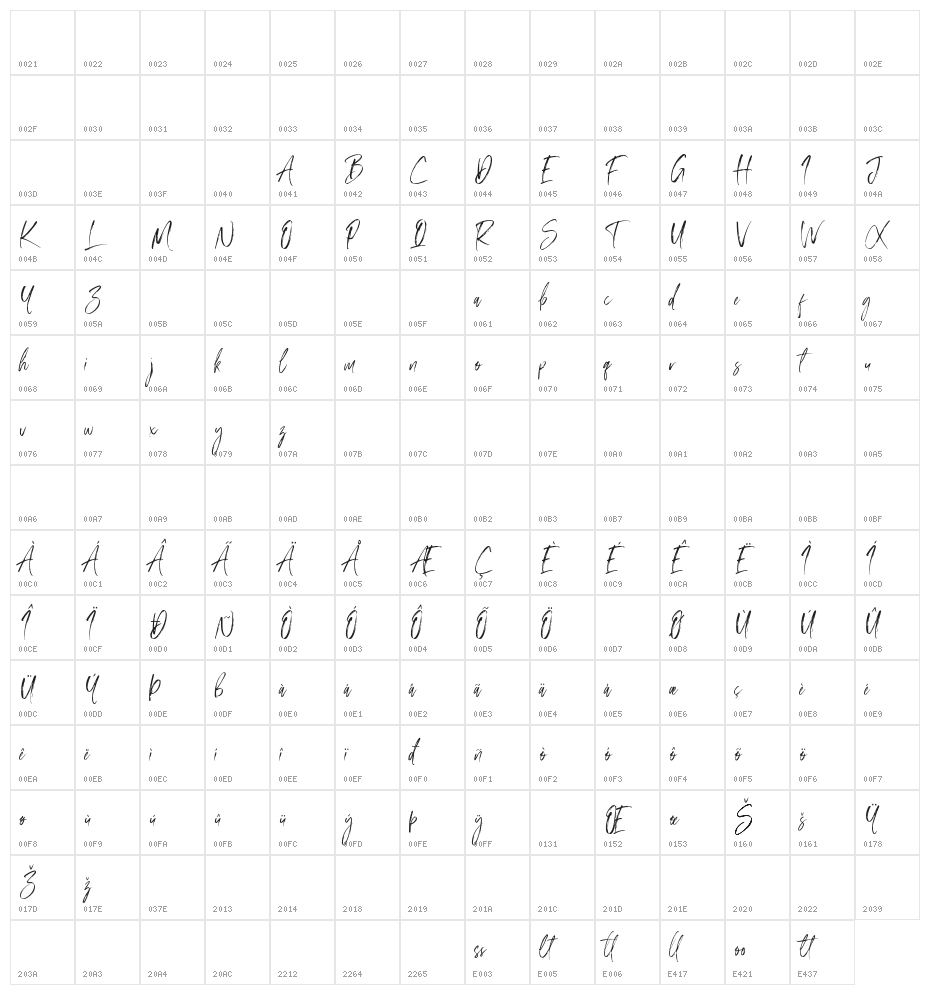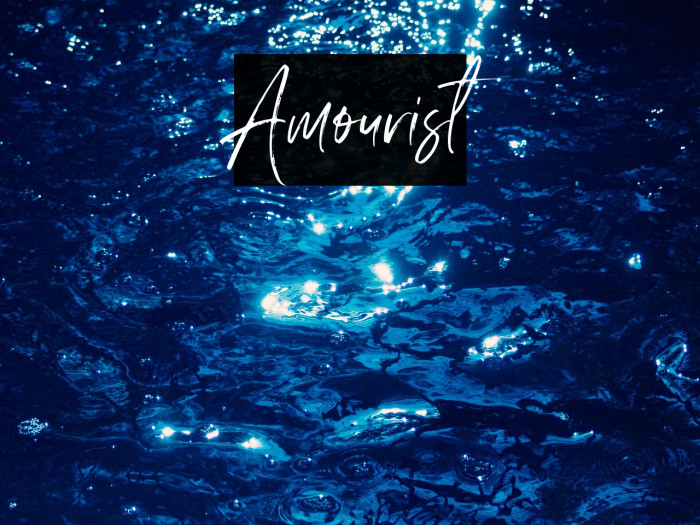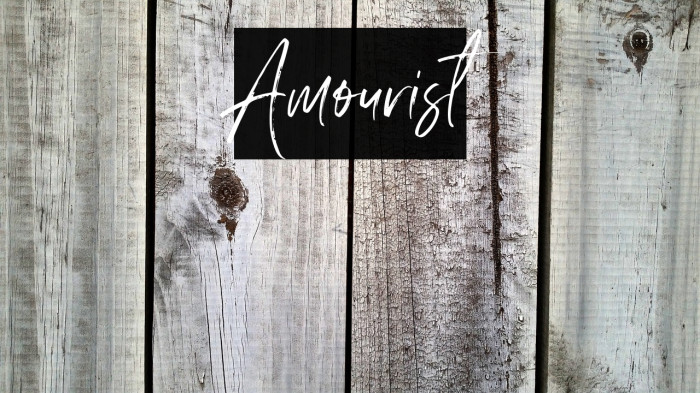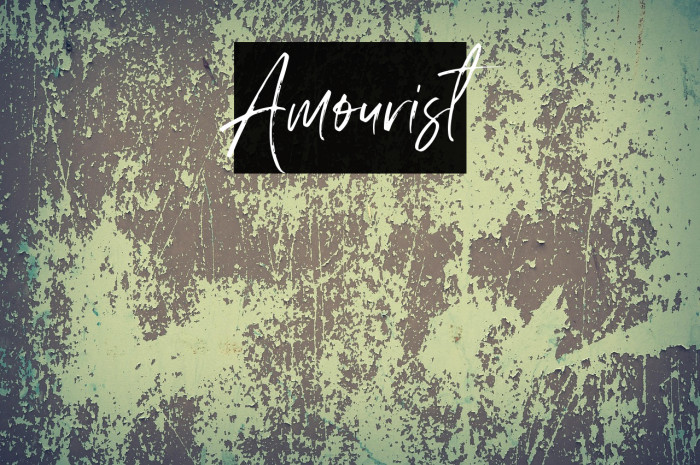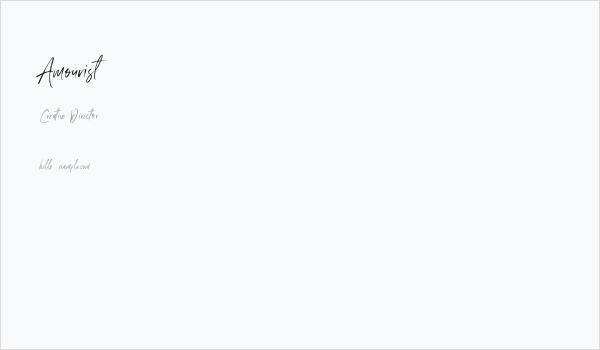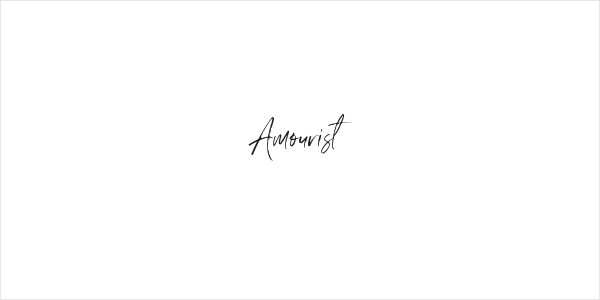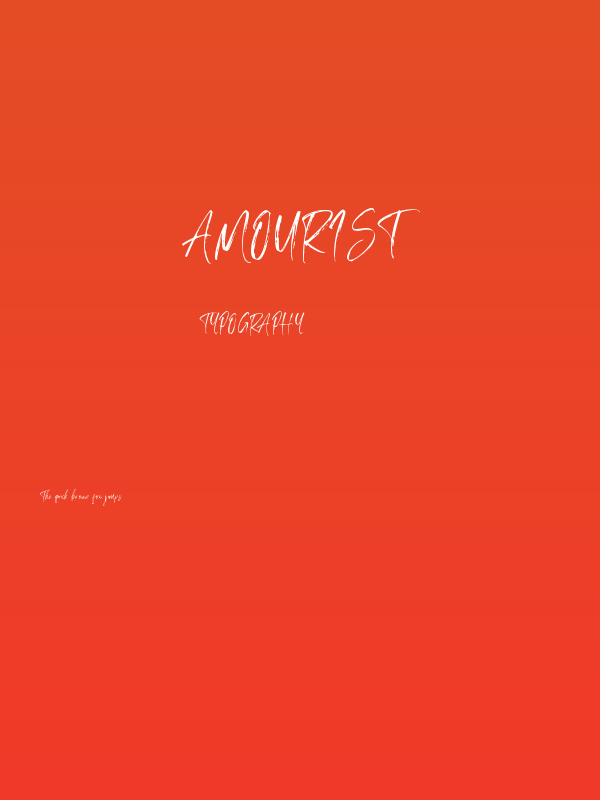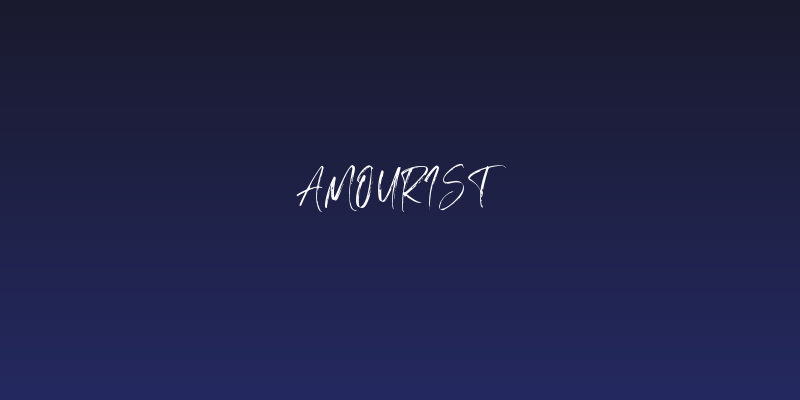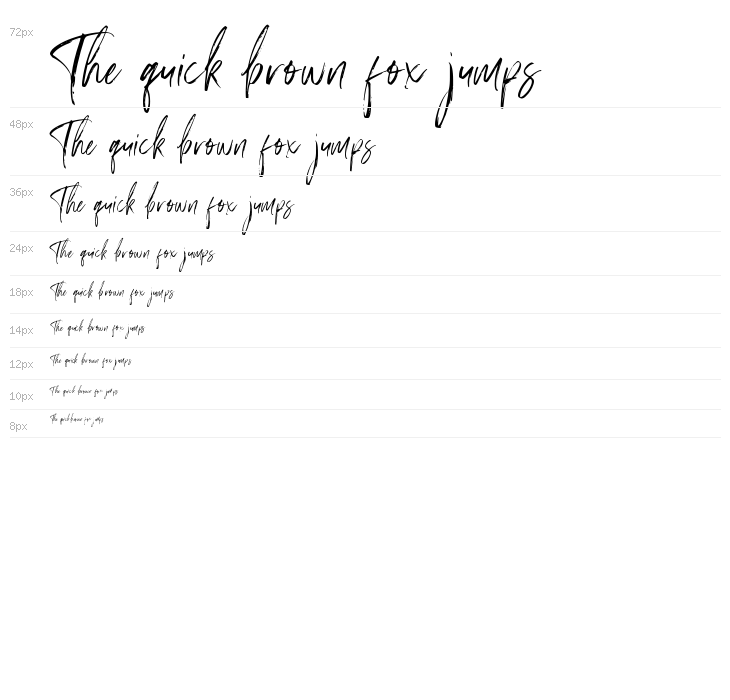
Amourist Font
Amourist Description
This font exudes a dynamic and expressive style, characterized by its brush-like strokes and fluid, cursive forms. The uppercase letters are bold and sweeping, with a sense of movement and energy, while the lowercase letters maintain a consistent flow, adding to the overall elegance. The strokes vary in thickness, creating a high contrast that enhances its artistic appeal. The font's organic and hand-drawn appearance makes it ideal for projects that require a personal touch or a creative flair. Its unique style is both modern and timeless, suitable for a variety of design needs.